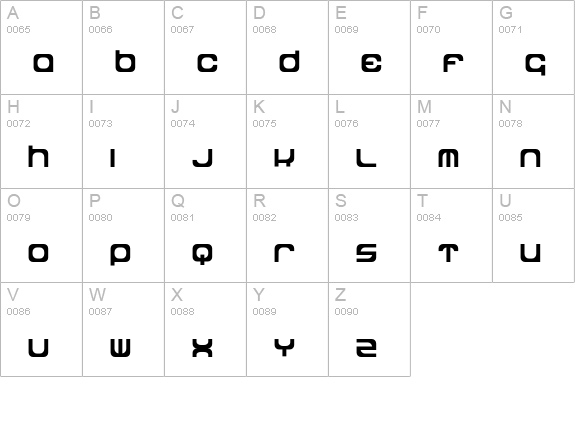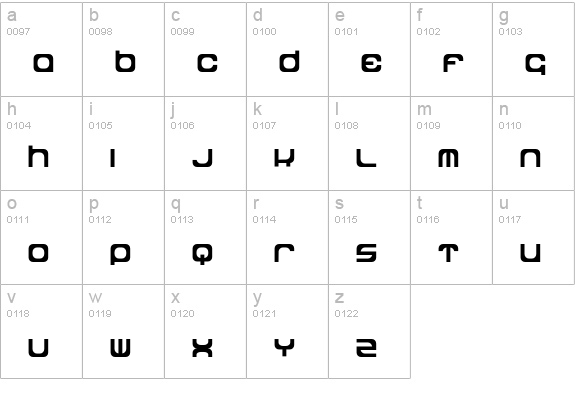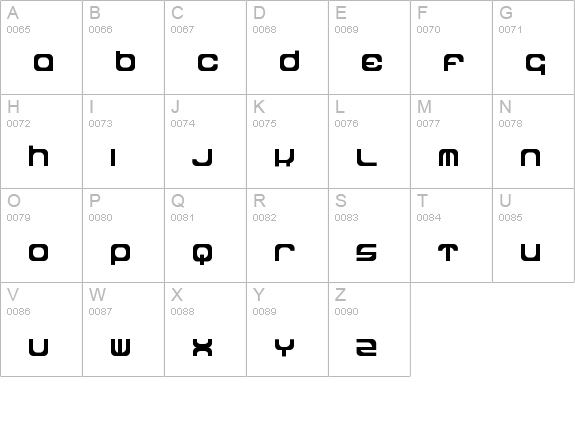
Dipdop Font Details
Introducing Dipdop font, a playful and quirky typeface that will add a touch of whimsy to your designs. This delightful font features charming curves and unique letter shapes that are sure to stand out. Whether you're working on a fun project or looking to add a bit of personality to your design, Dipdop font is the perfect choice. Best of all, Dipdop font is completely free to download at FontsMarket.com. So go ahead and give your designs a creative edge with this fun and stylish font. Let your imagination run wild and let Dipdop font bring your ideas to life!